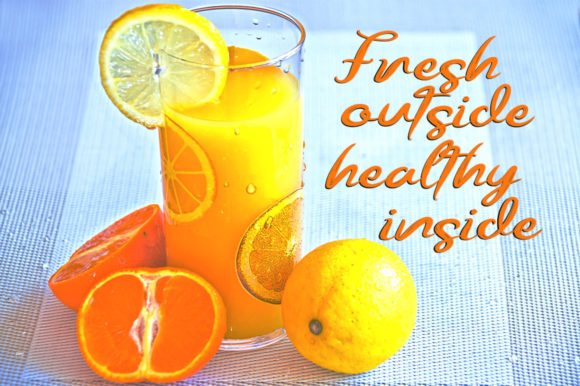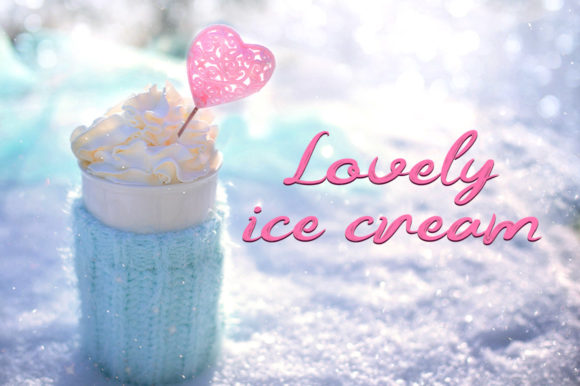
Audiseay Font
db-ku.com - Script & Handwritten -- Audiseay is a sweet and cursive handwritten font with unique brush touching. This gentle font will look gorgeous on a variety of design ideas such as for logos, quotes, posters, playful lettering, for clothing, and every other design which needs a unique touch. It will add a joyful and romantic touch to each of your projects!